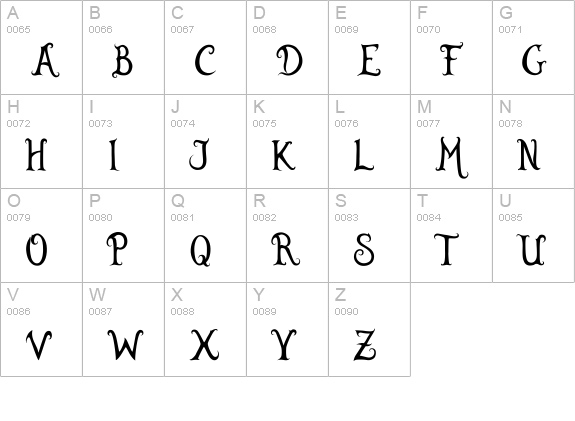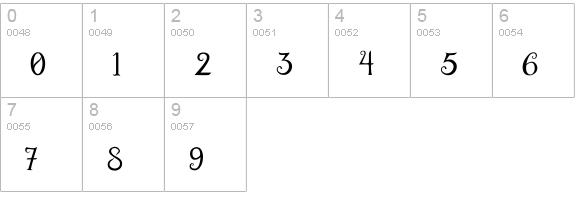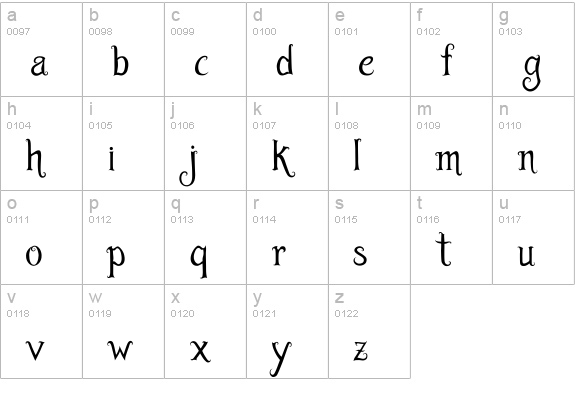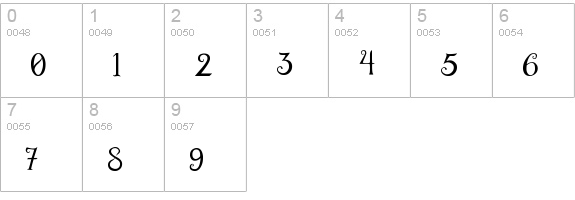
Burton's Dreams Pro Font Details
Burton's Dreams Pro font is a beautifully crafted typeface that exudes elegance and sophistication. With its intricate details and graceful curves, this font is perfect for adding a touch of luxury to any design project. The designer's creativity shines through in every letter, creating a font that is both stunningly unique and highly versatile. Whether you're working on a logo, a headline, or a poster, Burton's Dreams Pro font will captivate your audience and leave a lasting impression. But what sets Burton's Dreams Pro font apart from the rest is that it is not only exceptionally designed, but it is also free! That's right, this extraordinary font can be freely downloaded at FontsMarket.com. Now you can enhance your designs with this incredible font without breaking the bank. With its wide range of weights and styles, Burton's Dreams Pro font offers endless possibilities for your creative projects. Whether you prefer a bold and impactful look or a more delicate and refined aesthetic, this font has got you covered. So why wait? Don't miss out on this opportunity to elevate your design game with the breathtaking Burton's Dreams Pro font. Download it for free today at FontsMarket.com and watch your designs come to life with a touch of elegance and sophistication.